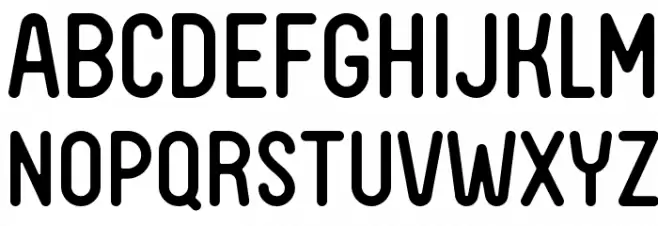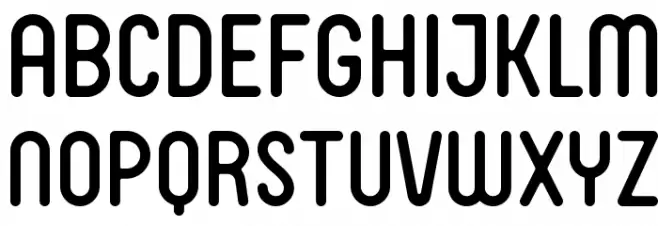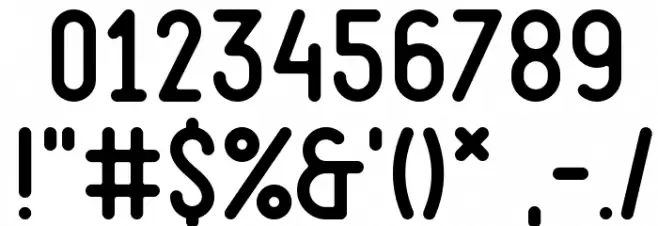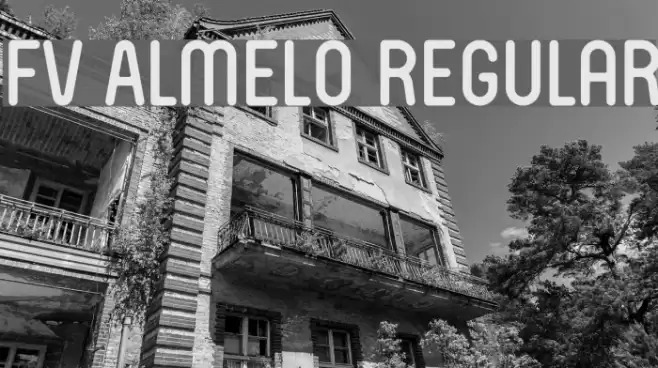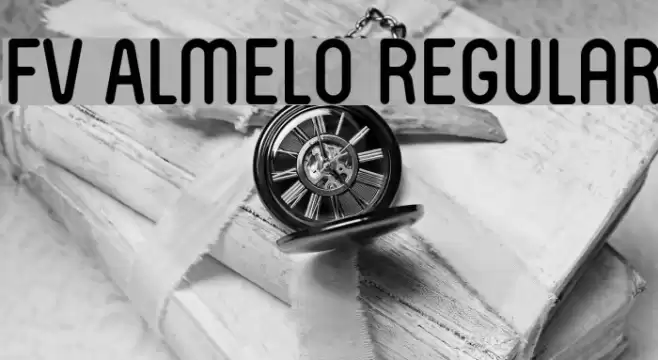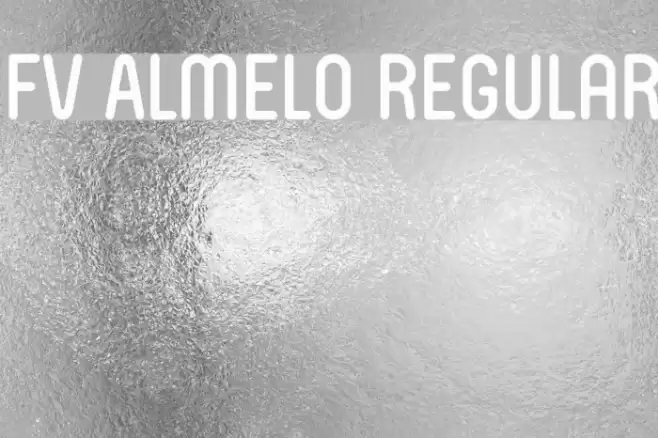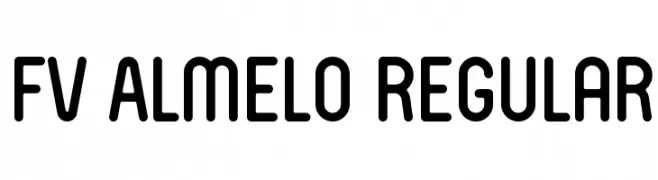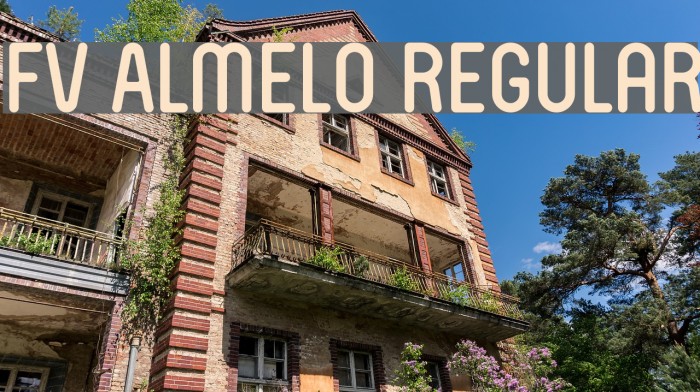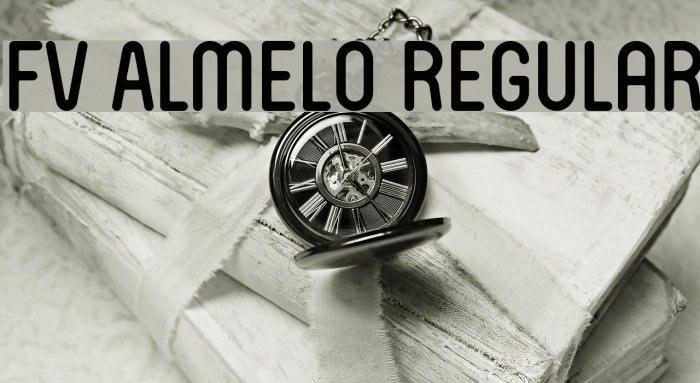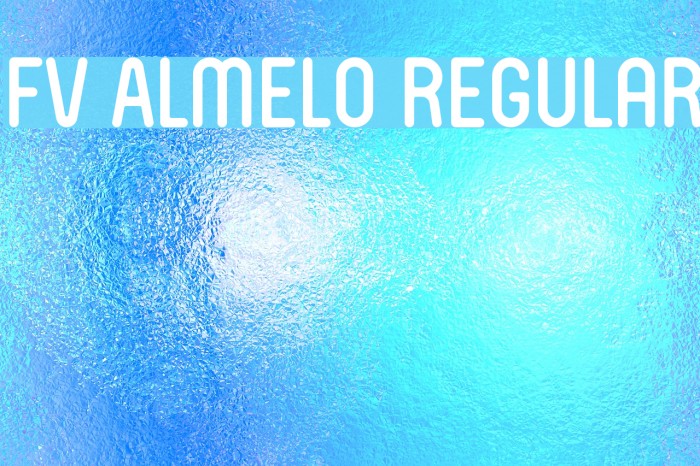
FV Almelo Regular
This font features a clean, rounded sans-serif style with uniform stroke widths, giving it a modern and approachable appearance. The characters are well-proportioned, with a slight geometric influence that enhances readability. The rounded edges soften the overall look, making it suitable for a variety of applications. The numerals and special characters maintain the same rounded, friendly aesthetic, ensuring consistency across all glyphs. This font is versatile, offering a contemporary feel that can be both professional and casual.
A modern, rounded sans-serif font with uniform strokes and a friendly appearance.
- Proposed Projects: Ideal for branding, signage, user interfaces, and any project requiring a clean, approachable typeface.